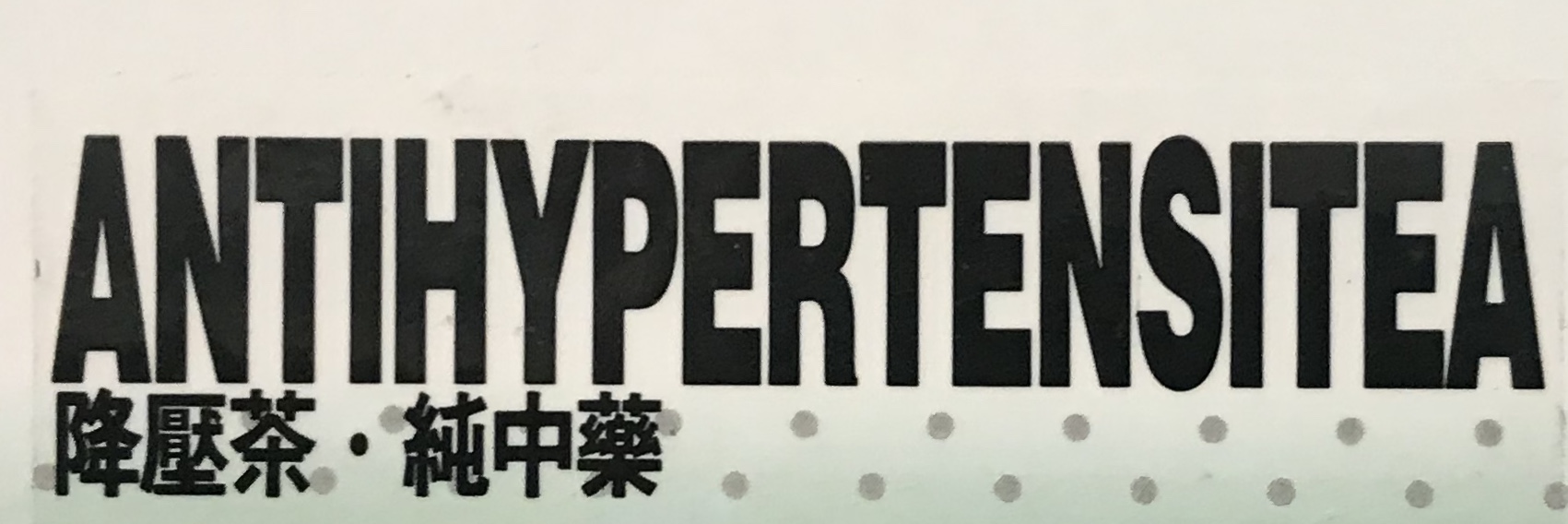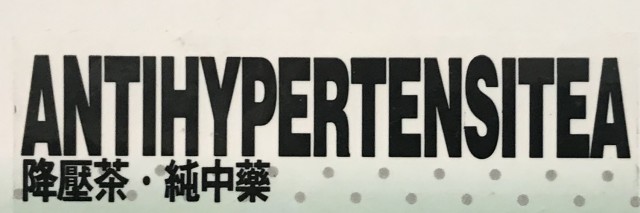
Asian market hypertension tea logo ID
My friend and I are hoping to ID this typeface and use it for our oldschool rave/breakbeat hardcore/jungle duo. Any help would be very appreciated!
This is just Helvetica Bold stretched mercilessly.